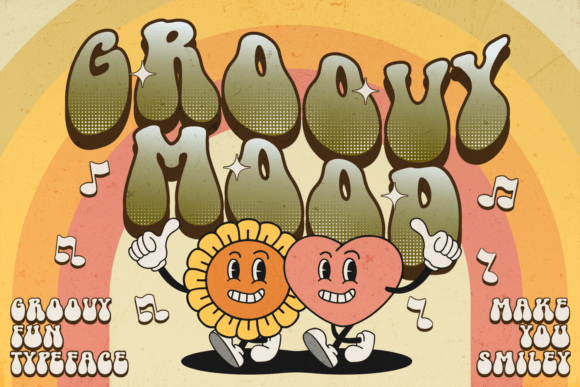
Get ready to embark on a typographic adventure with Groovy Mood, the display font that oozes retro charm and modern flair. Designed by the talented Dani (7NTypes), Groovy Mood is a versatile font family that caters to a diverse range of creative projects, from eye-catching headlines to heartfelt greeting cards.
With its playful and stylish personality, Groovy Mood adds a touch of warmth and sophistication to any design. Its meticulously crafted glyphs and ligatures, accessible via PUA encoding, bring an exquisite level of detail to your creations, making them stand out from the ordinary.
Step into a world of nostalgia with Groovy Mood, where classic meets contemporary. Its retro aesthetic evokes a sense of longing for the past, while its modern sensibilities keep it relevant and fresh. This font is a perfect fit for projects that aim to capture the essence of vintage aesthetics with a modern twist.
Unleash your creativity and let Groovy Mood take center stage in your designs. Its versatility knows no bounds, adapting seamlessly to a multitude of applications. Whether you're crafting captivating posters, designing logos that exude personality, or creating social media graphics that pop, Groovy Mood will elevate your work to new heights.
Dive into the world of Groovy Mood and let your imagination run wild. Its playful nature invites you to experiment with different styles and combinations, creating designs that are both visually stunning and emotionally resonant. This font is not just a collection of letters; it's an artistic tool that empowers you to express your unique voice and style.